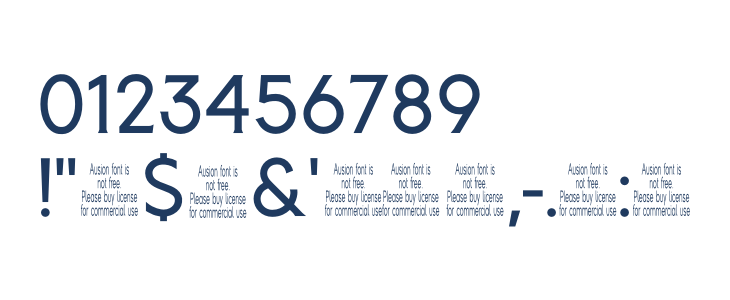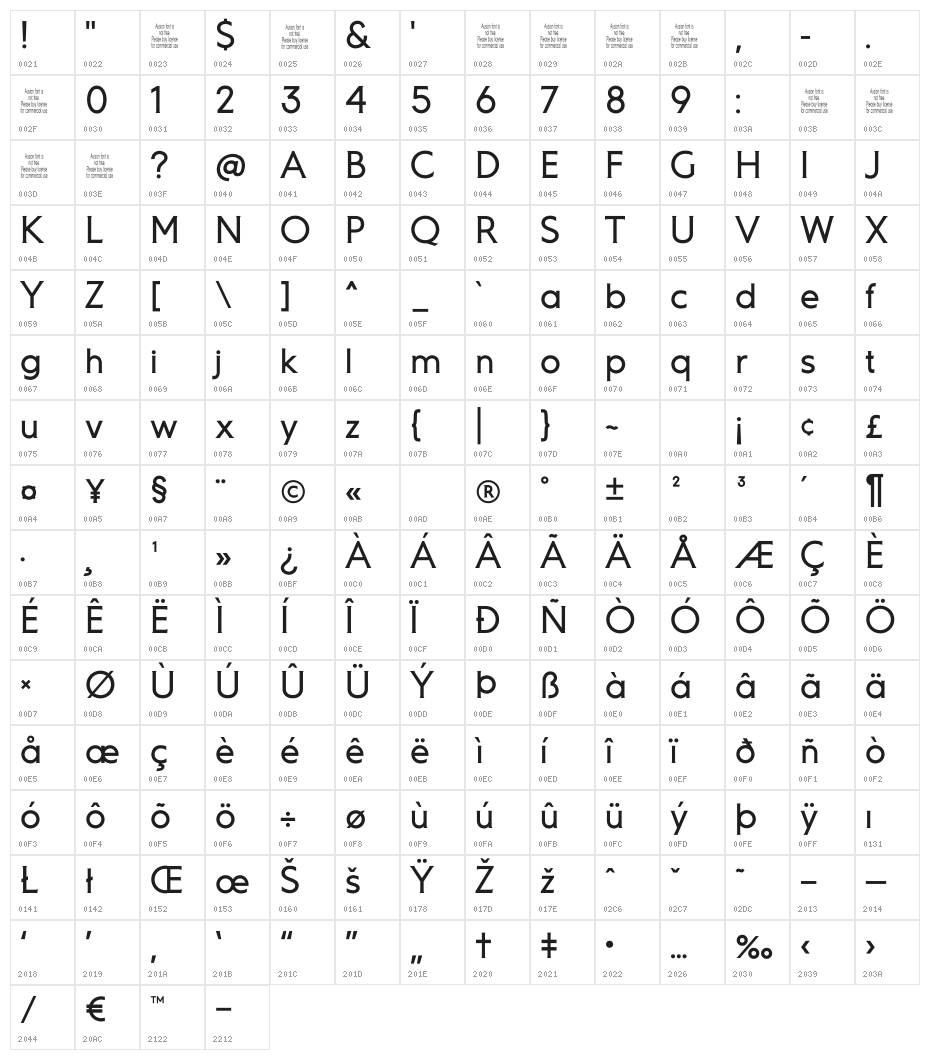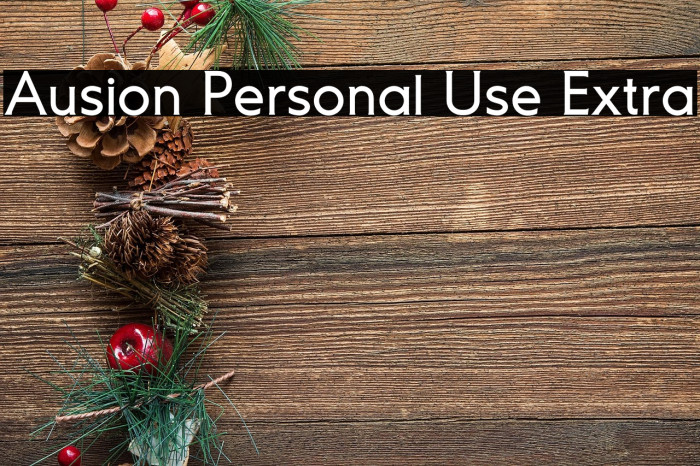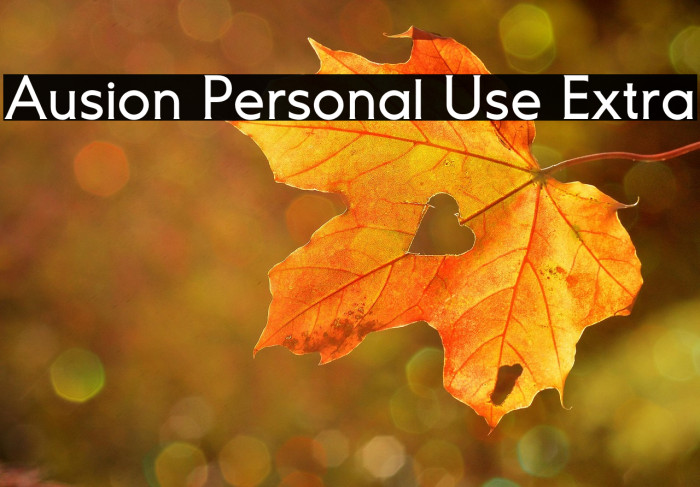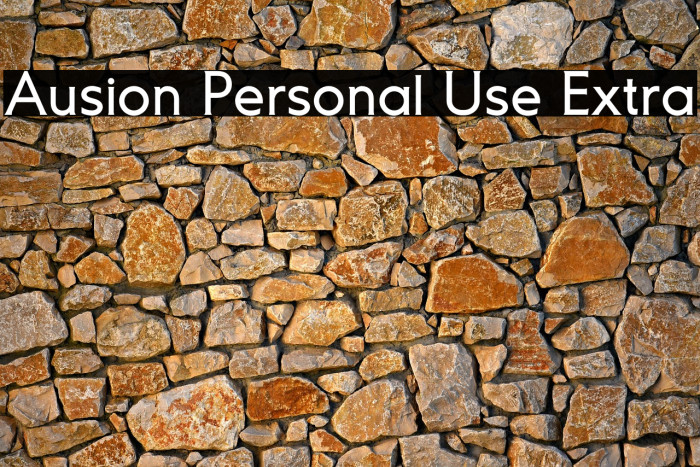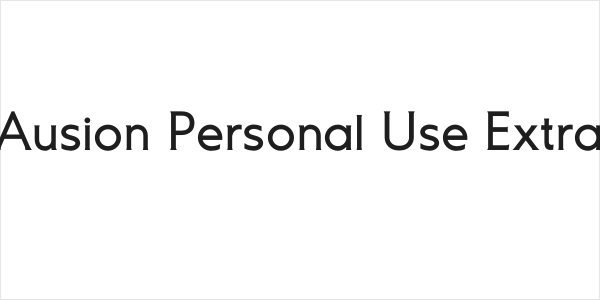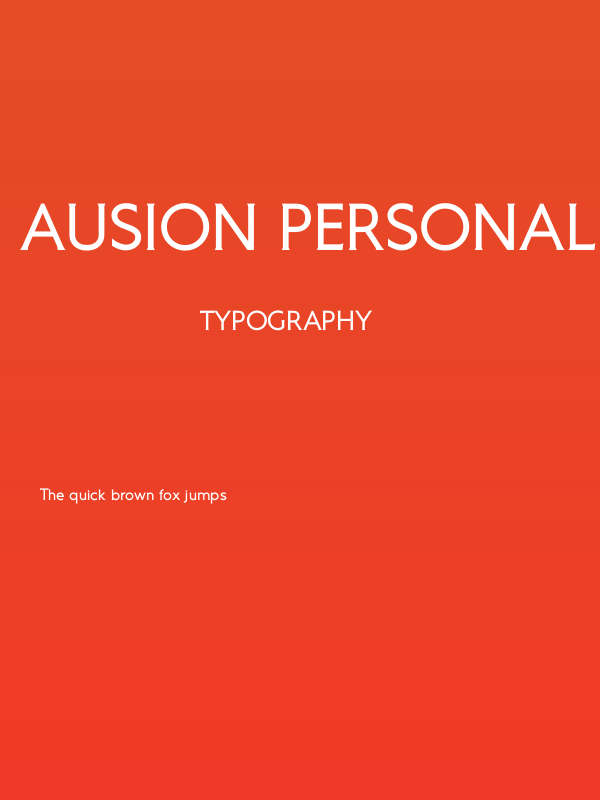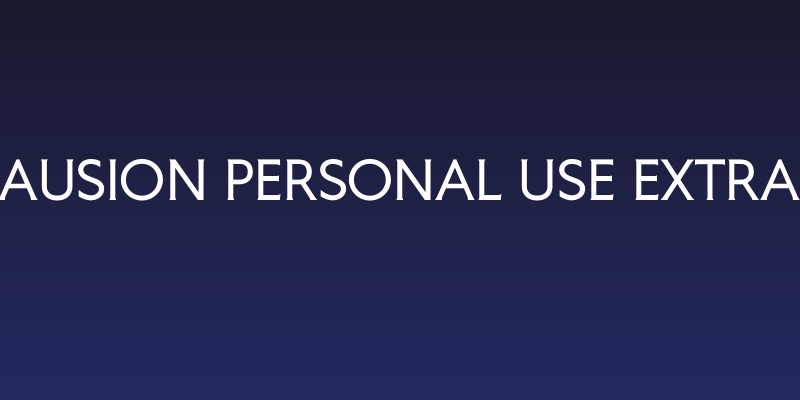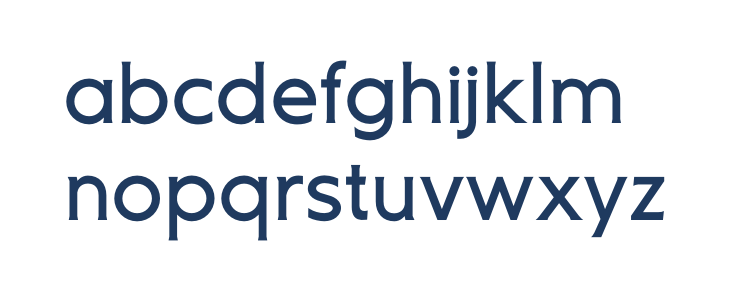
Ausion Personal Use Extra Font
Ausion Personal Use Extra Description
This font features a clean and modern sans-serif style with a balanced and harmonious appearance. The uppercase letters are bold and assertive, while the lowercase letters maintain a smooth and rounded form, providing a friendly yet professional look. The numerals are clear and distinct, ensuring readability. Special characters are designed with simplicity and elegance, making them versatile for various uses. The overall design is minimalistic, focusing on clarity and functionality.